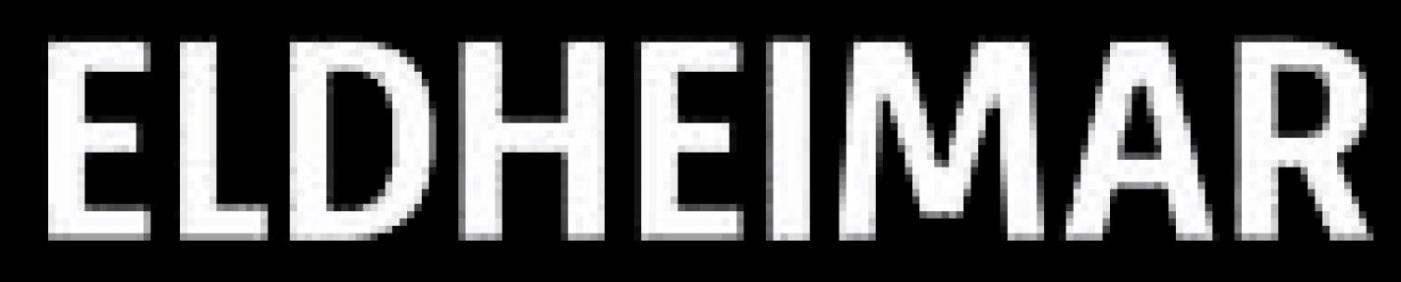
Looking for the Font on this Museum Logo (Eldheimar)
Hello, I am looking for this font on a museum logo. At first I thought it could be Museo Sans Condensed but when I put them side by side, there were some significant differences. I also thought it could be Fira Sans, but it's different as well. Can anyone help me identify it? I'd pick a substitute but that M looks pretty distinct.
Thank you! I went and took a second look at Fira Sans, and it seems that the font on the logo is too similar to Fira to not be Fira. It turns out that the rest of the text was Fira Sans condensed and it was just the M that was Fira Sans. A bit of modification on the L and the E and a bit on the A it's almost an exact match. almost. I think. Sorry about my rambling haha.